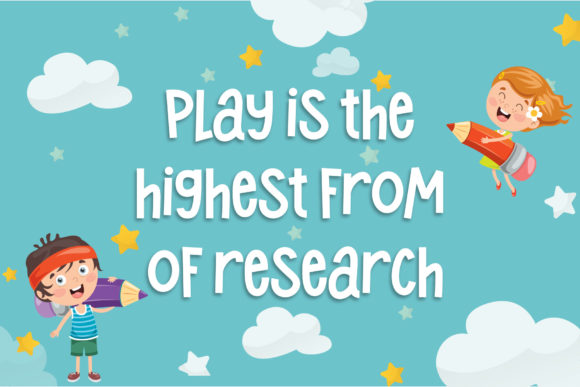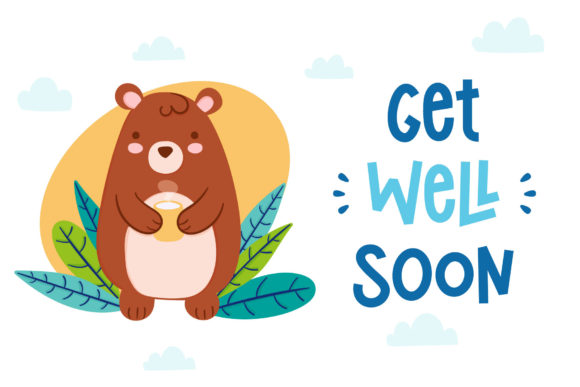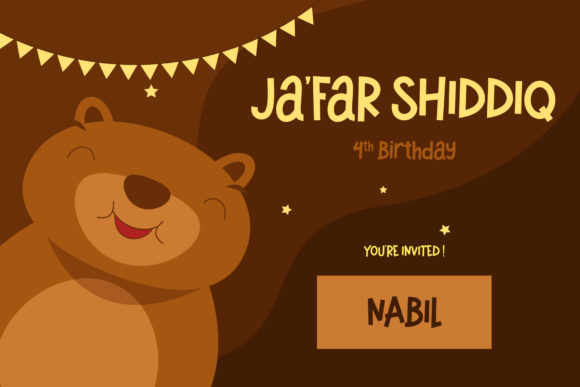
Introduction to Silverkids Font
Silverkids is a sweet, fun and cute handwritten font.
Clean and soft, this font is the perfect fit for all of your crafty DIY projects, cricut, logos, branding, social media, and any project that requires a personal look .